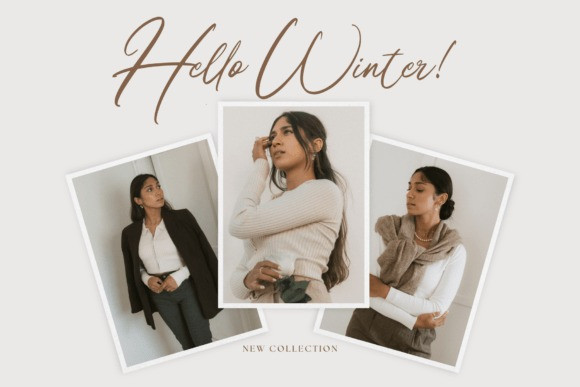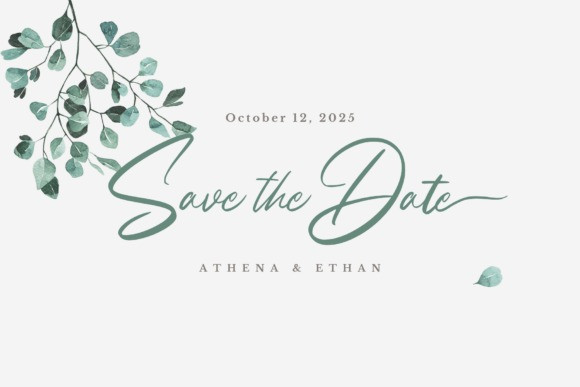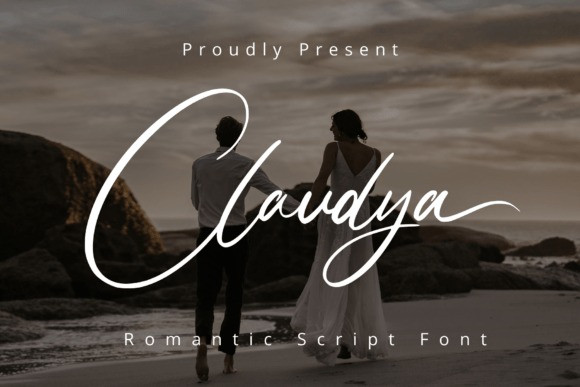
Claudya Script Font
Claudya Script Font – an enchantingly romantic font. With roots in handwritten and signature styles, it exudes a natural charm that transports you to handwritten love letters and moonlit serenades. What sets Claudya apart are its meticulously designed swash, alternate, and ligature features, amplifying its expressive nature to resonate with your design’s emotionality. Its versatility is unmatched, perfectly fitting any design need that calls for a touch of romanticism and a breath of nature. Let Claudya sweep you off your feet with its effortlessly captivating design aesthetics.